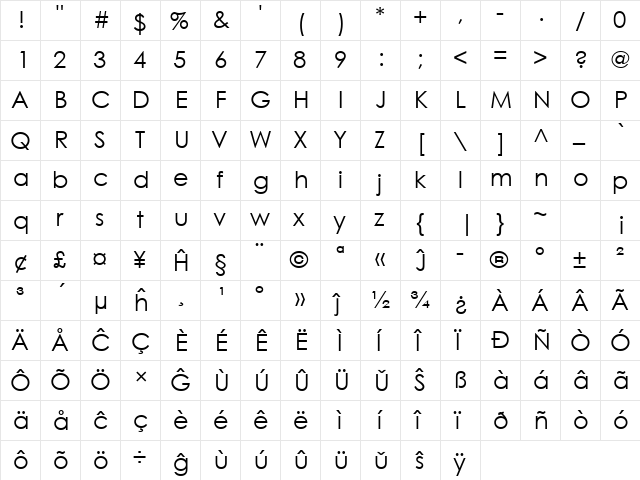
Century Gothic Eo Regular
Design Context for Century Gothic Eo Typeface
Century Gothic Eo has the quiet confidence of well-executed sans-serif typography: versatile, unobtrusive, and dependable at any size.
Font Pairing: Works well alongside a characterful serif or display font that can carry the expressive load while Century Gothic Eo handles the functional copy.
Pro Tip: Pair Century Gothic Eo with a display or serif font for headlines — its neutral character makes it an excellent supporting player in complex typographic systems.